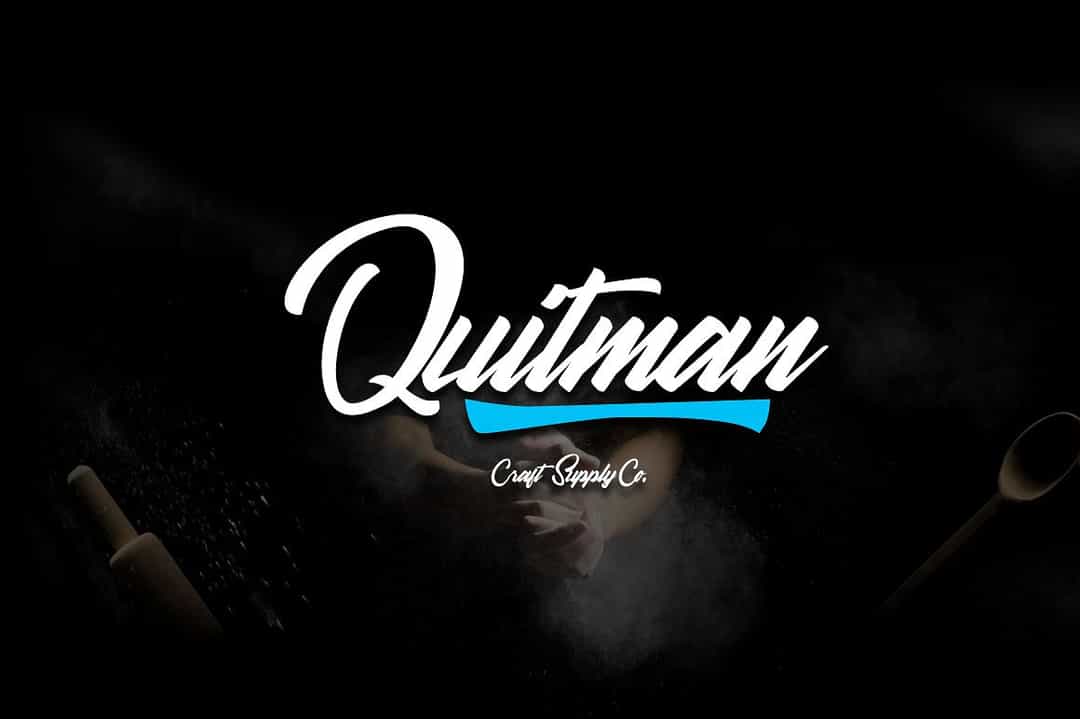
Discover Quitman Script Font, part of the Calligraphy collection—a versatile and unique font perfect for adding a personal touch to your projects. Download it for free and enjoy crafting designs with style, from invitations to social media posts. This font is available exclusively for personal use, giving you the freedom to create without limits. Unlock your creativity with Quitman Script Font today!
Introducing New Font Quitman. Quitman is perfect for logo, about greeting cards, quotes, posters, branding or naming, name card, design title, stationary, blogging header, art quote, typography art, an modern envelope lettering, or book design.